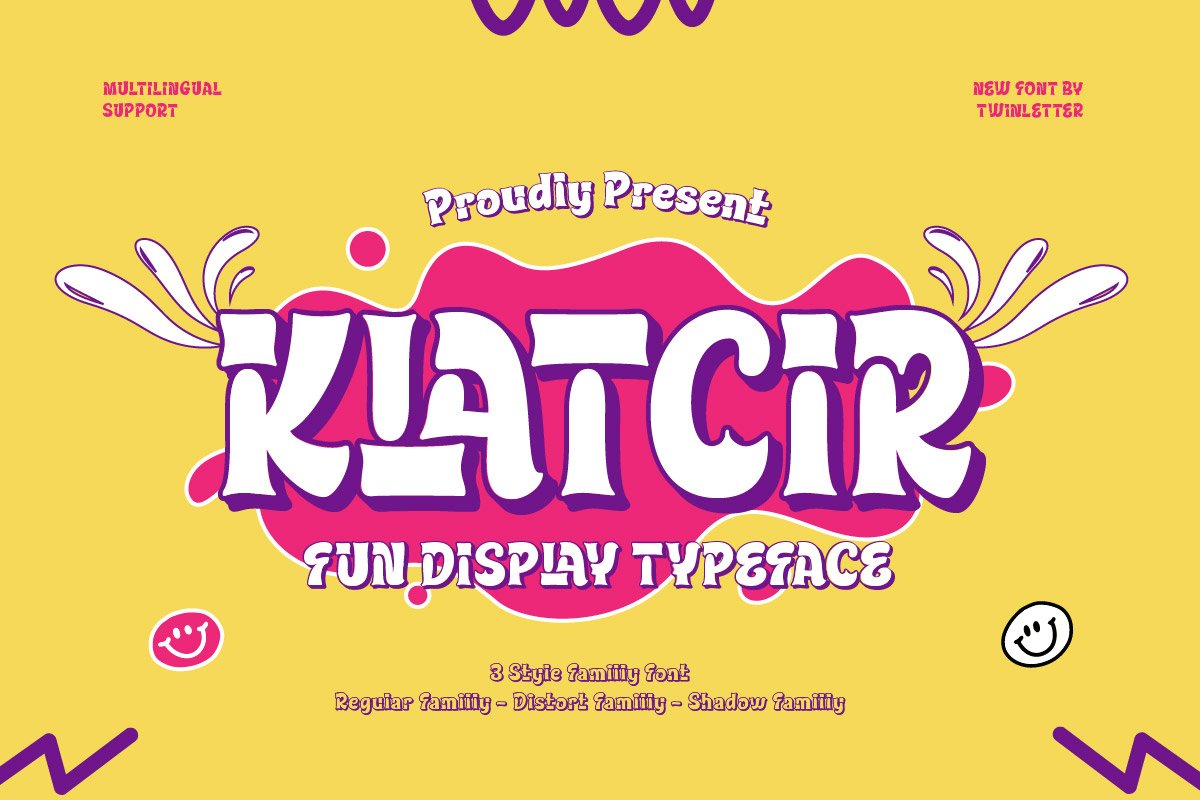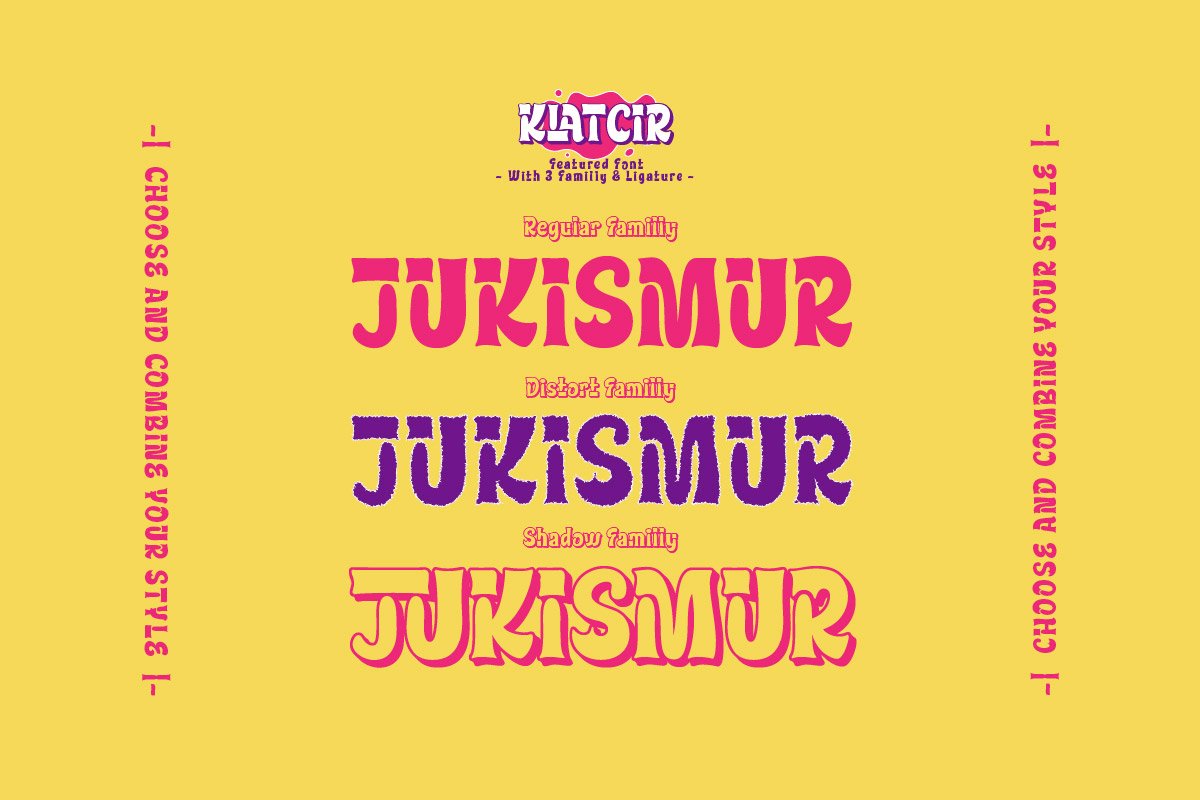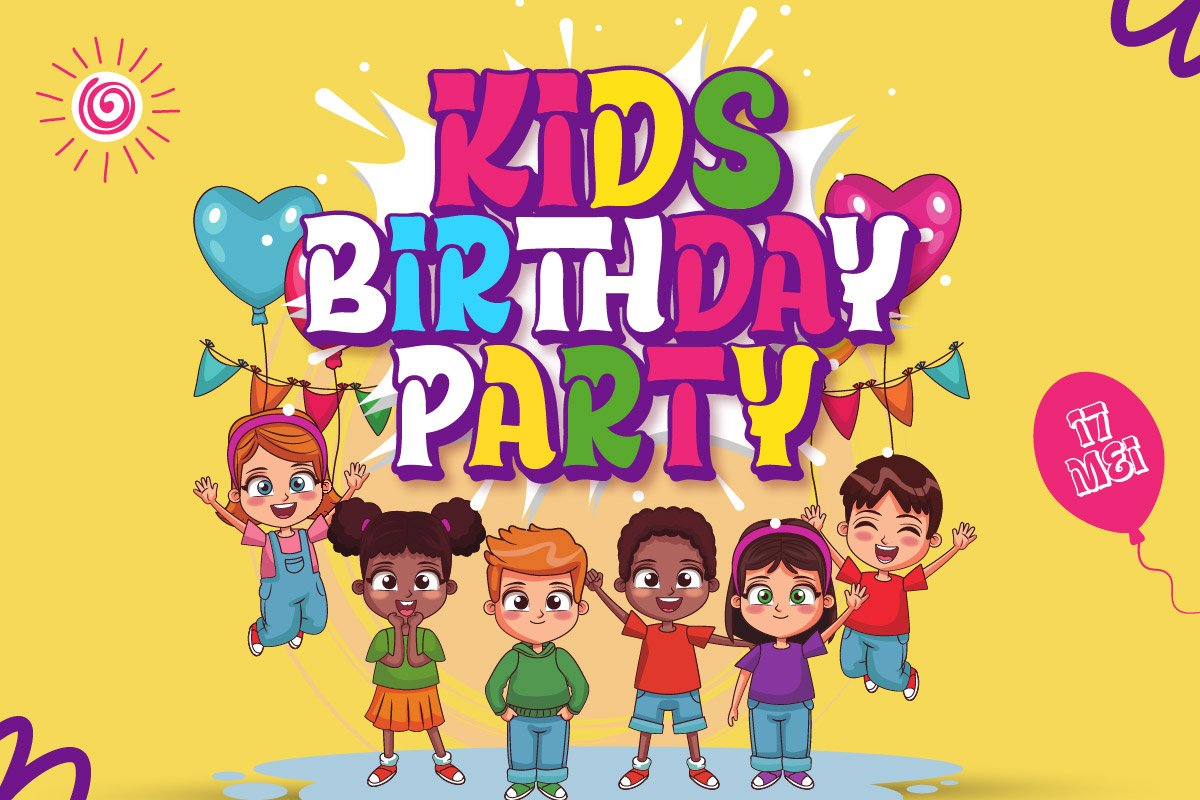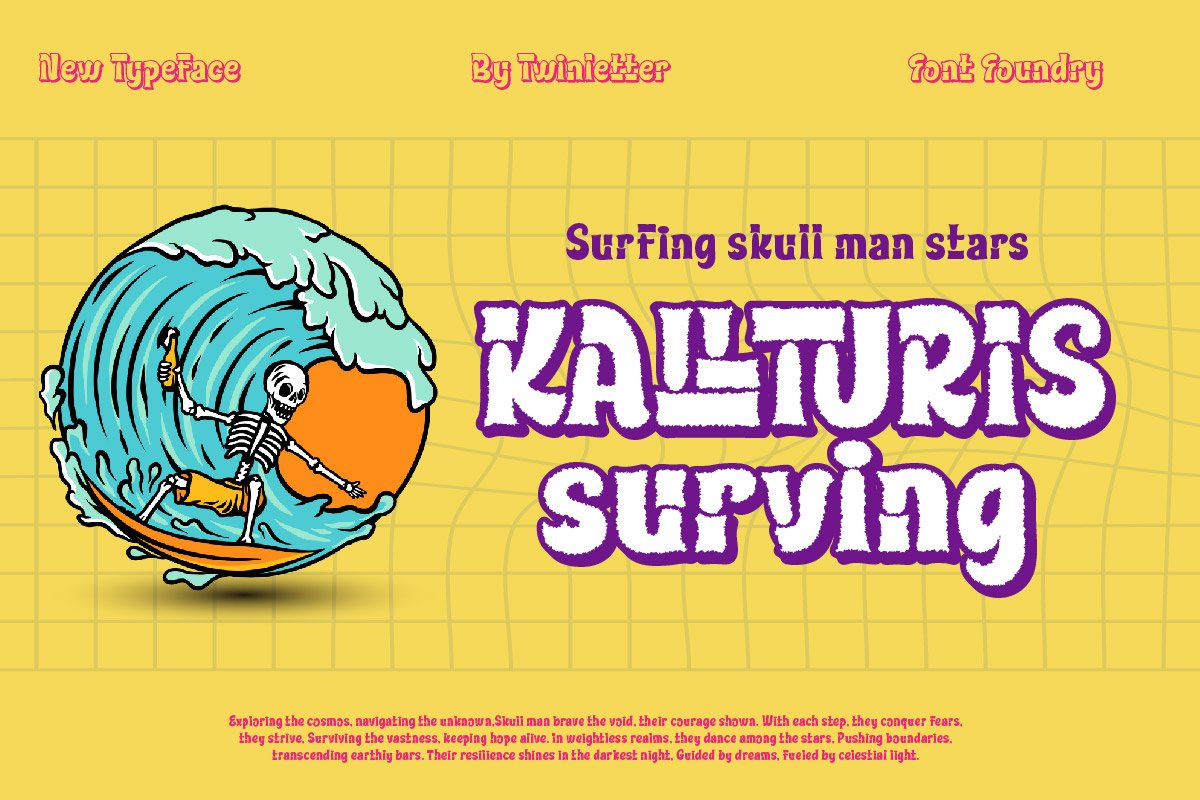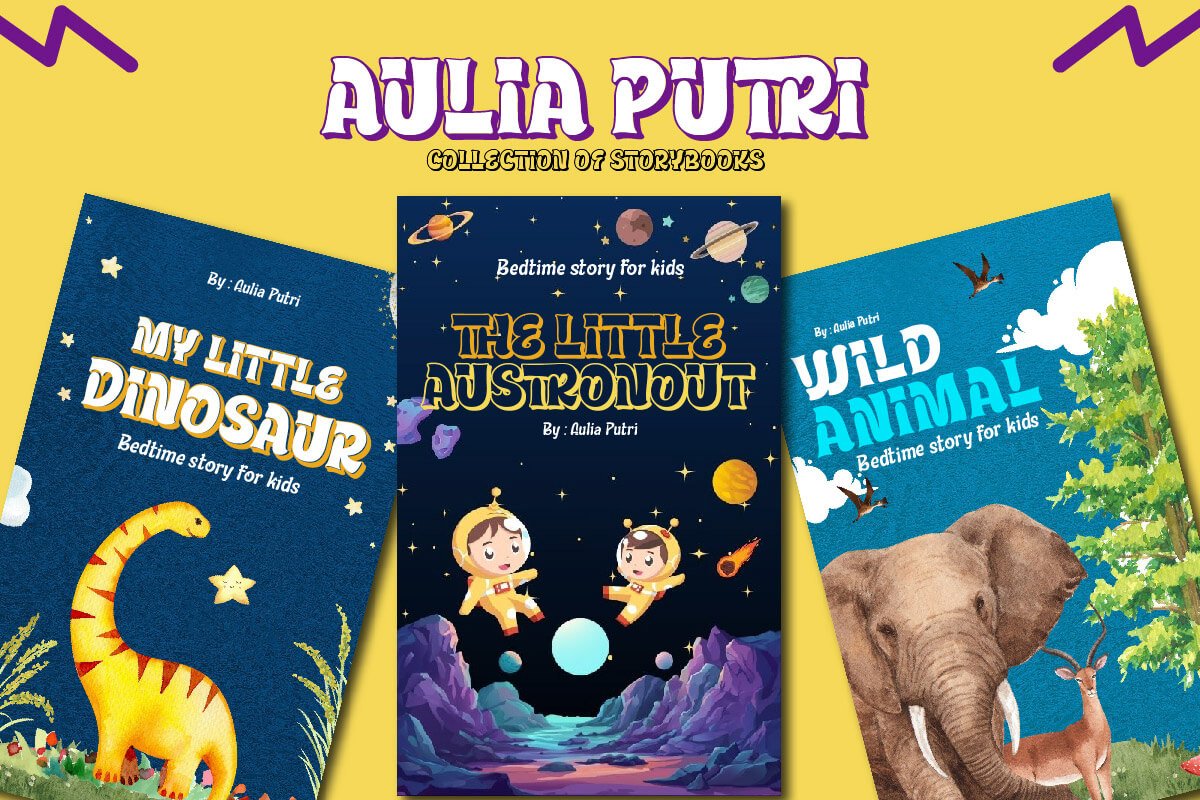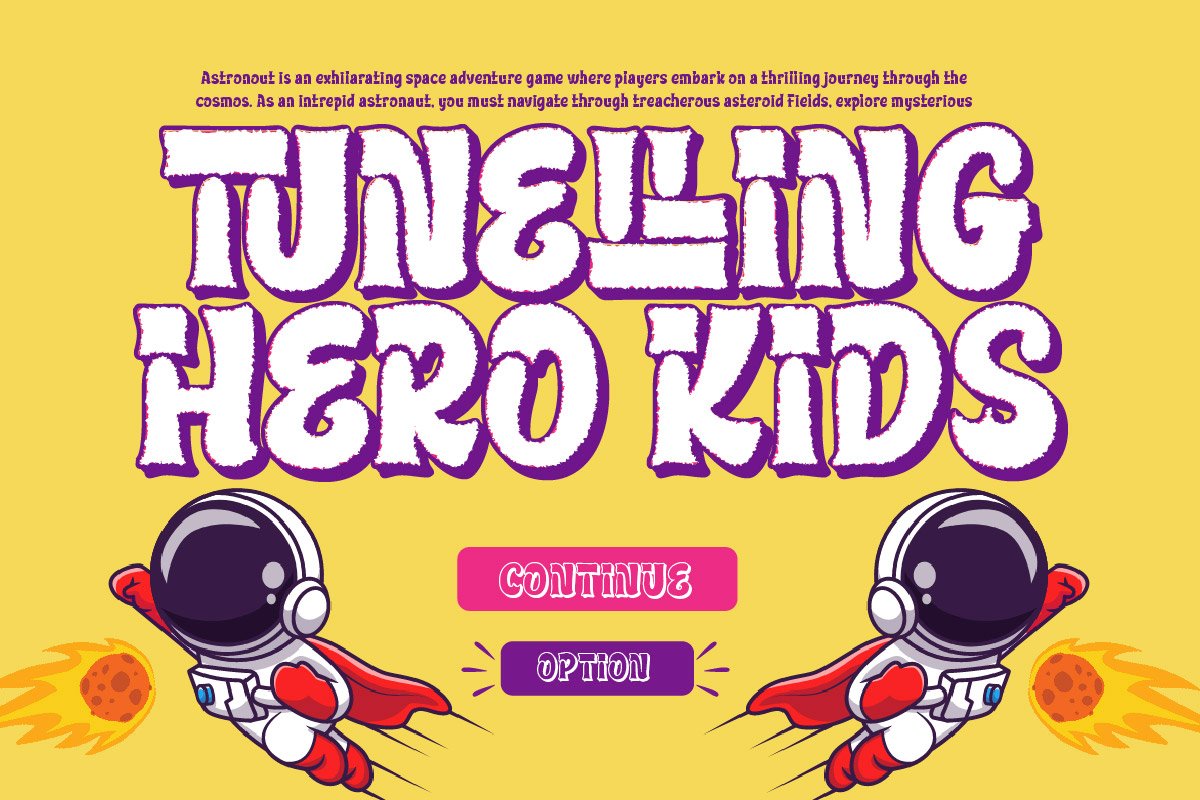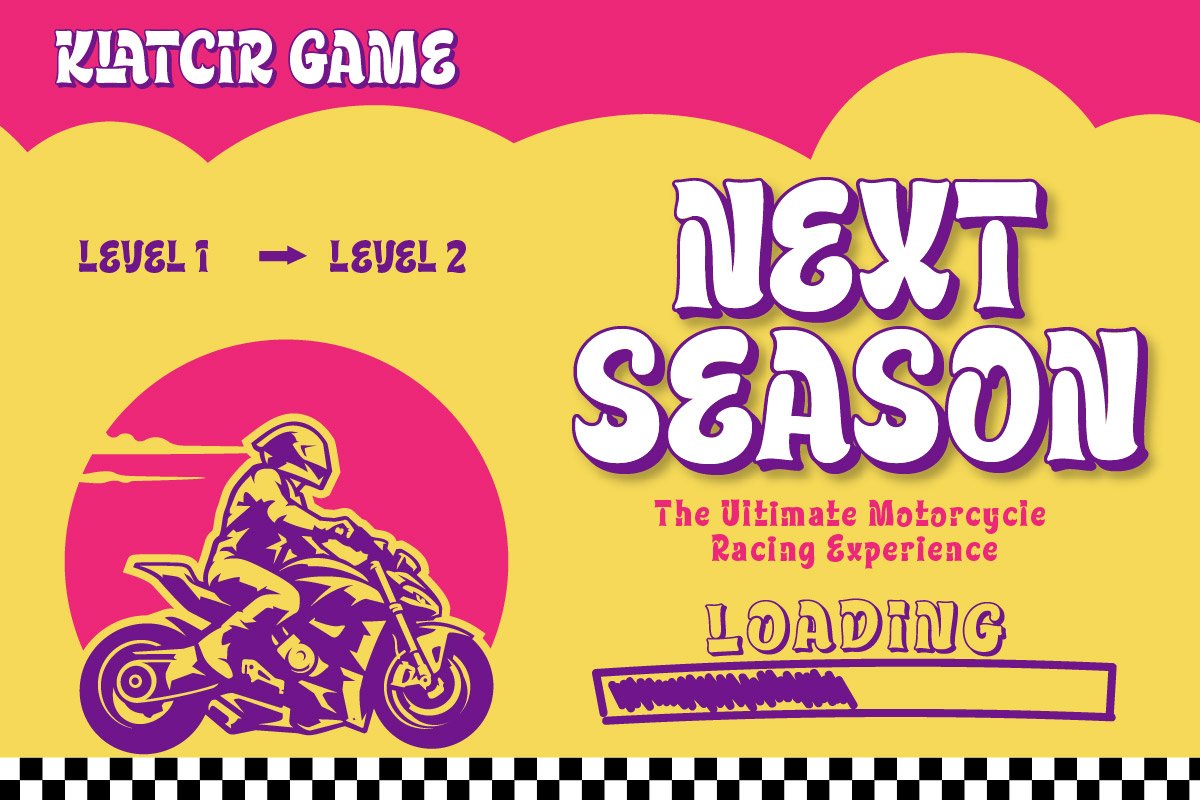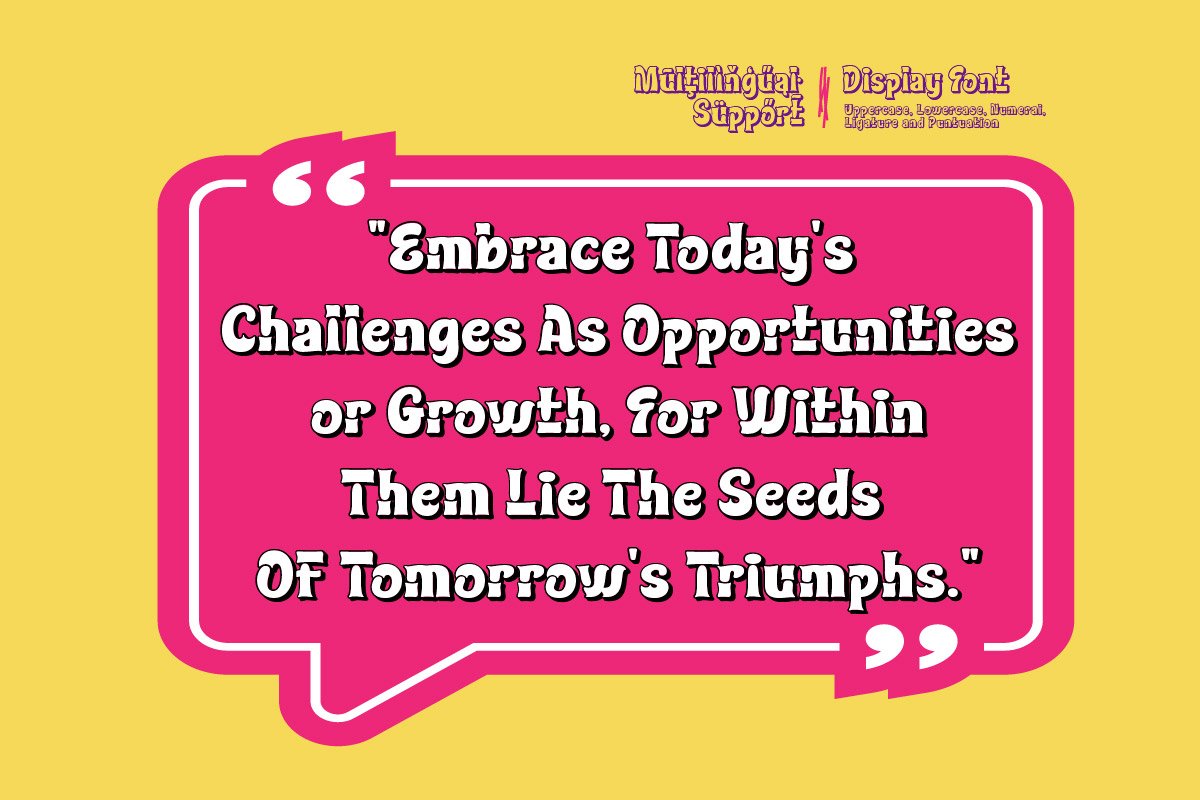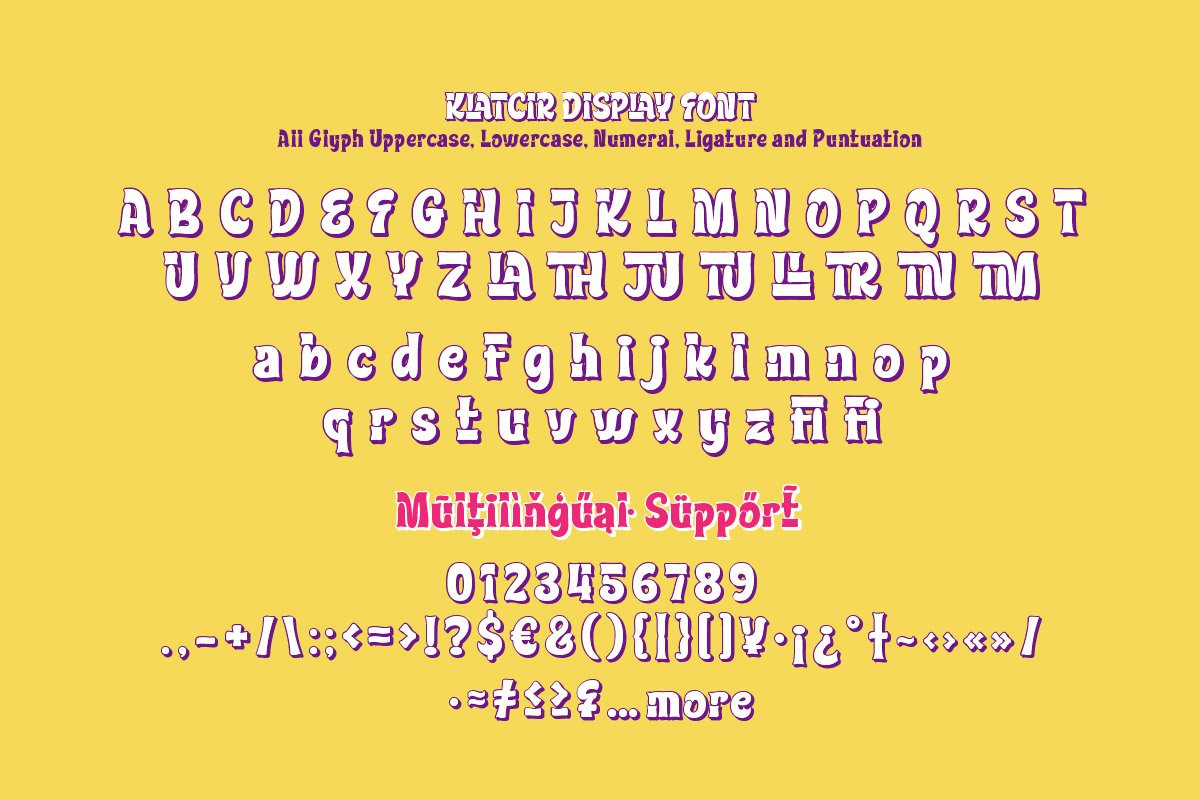
- Klatcir – Playful Display Font
Shadow
Bring a touch of fun to your designs with Klatcir, a playful display font that’s full of whimsy and charm. Its quirky, irregular shapes are sure to capture the imagination, making it a great choice for children’s books, party invitations, or any design project that calls for a fun and friendly feel. With Klatcir, you can create designs that not only look great, but also bring a smile to people’s faces.